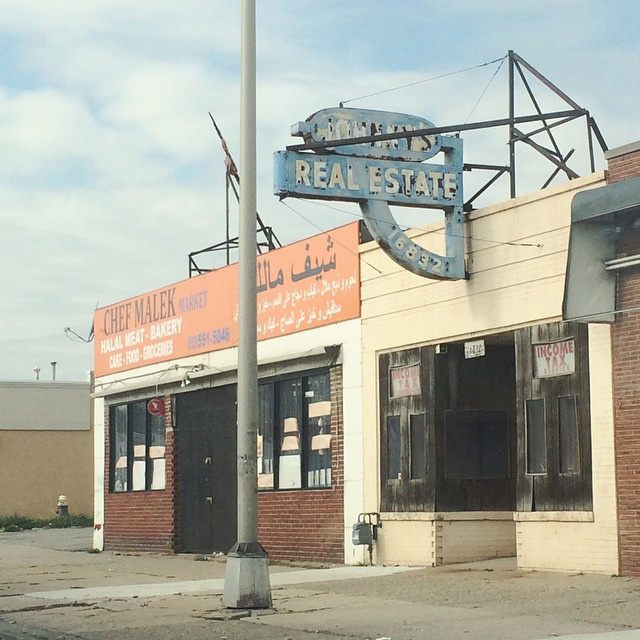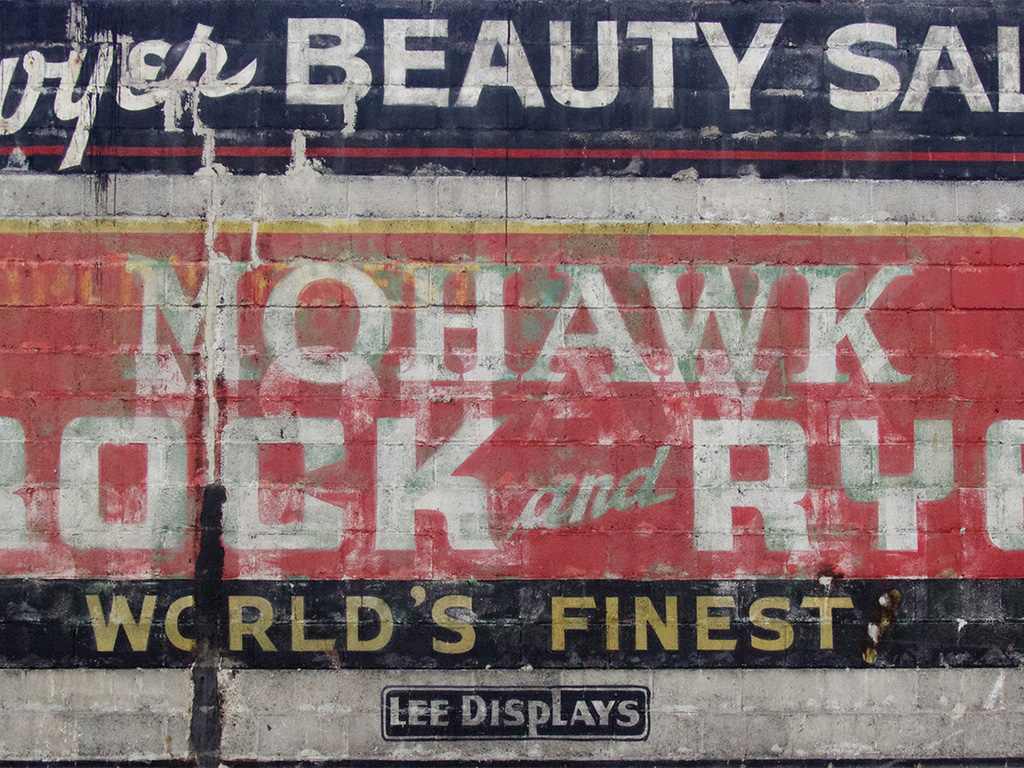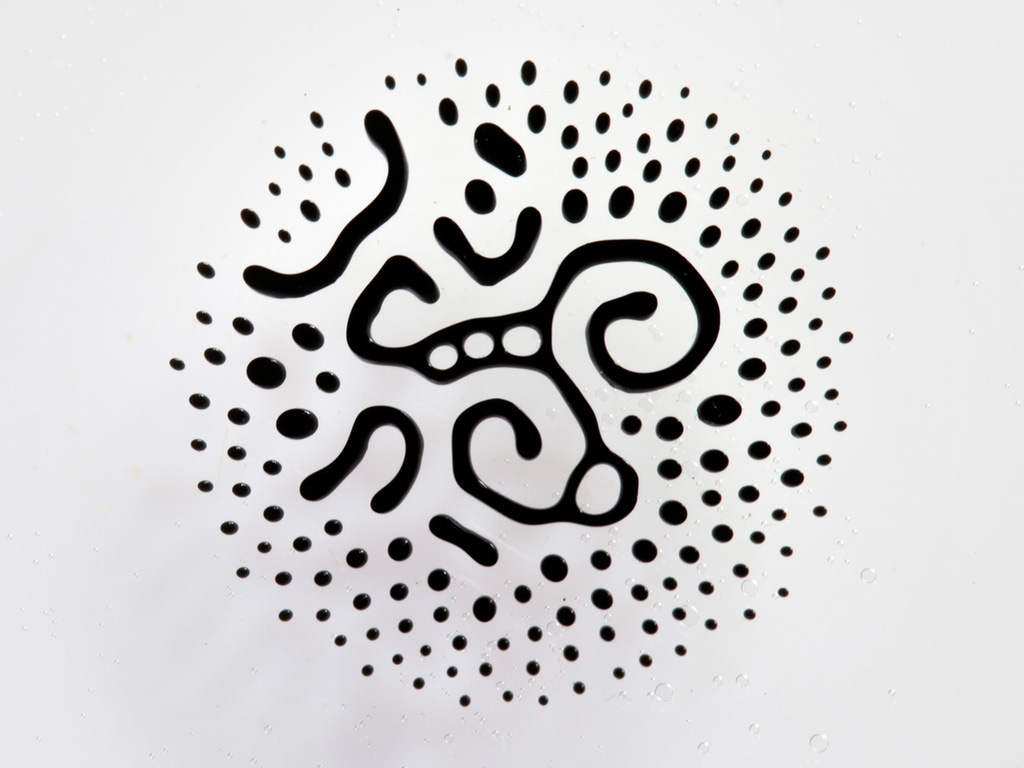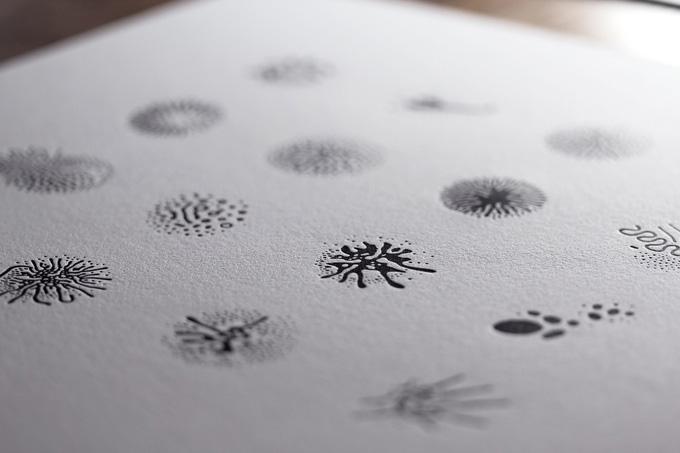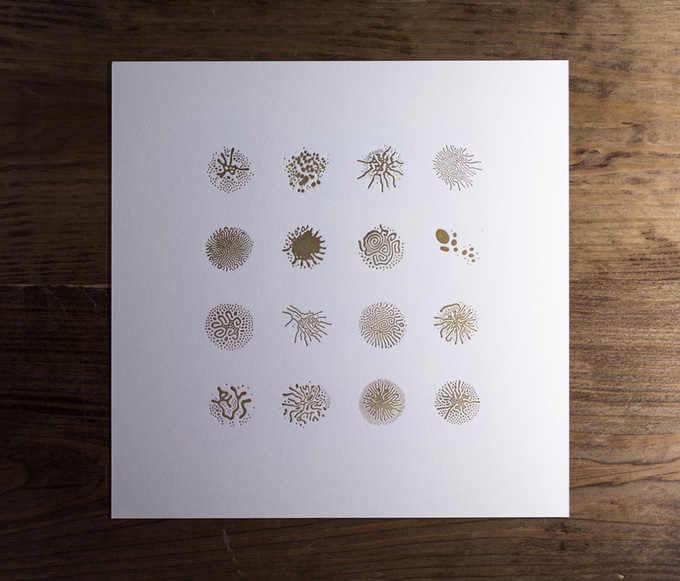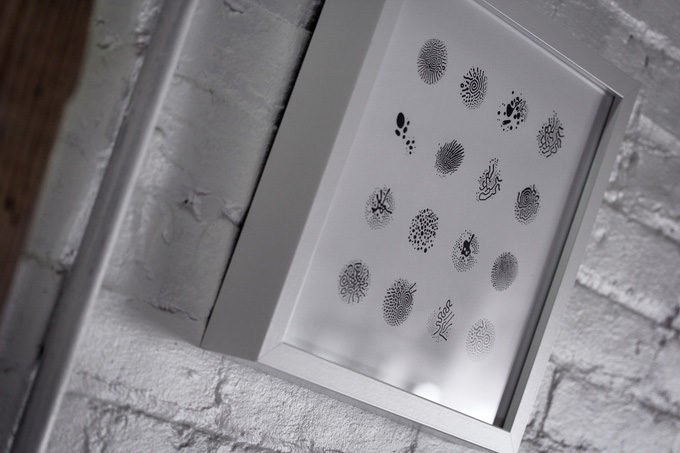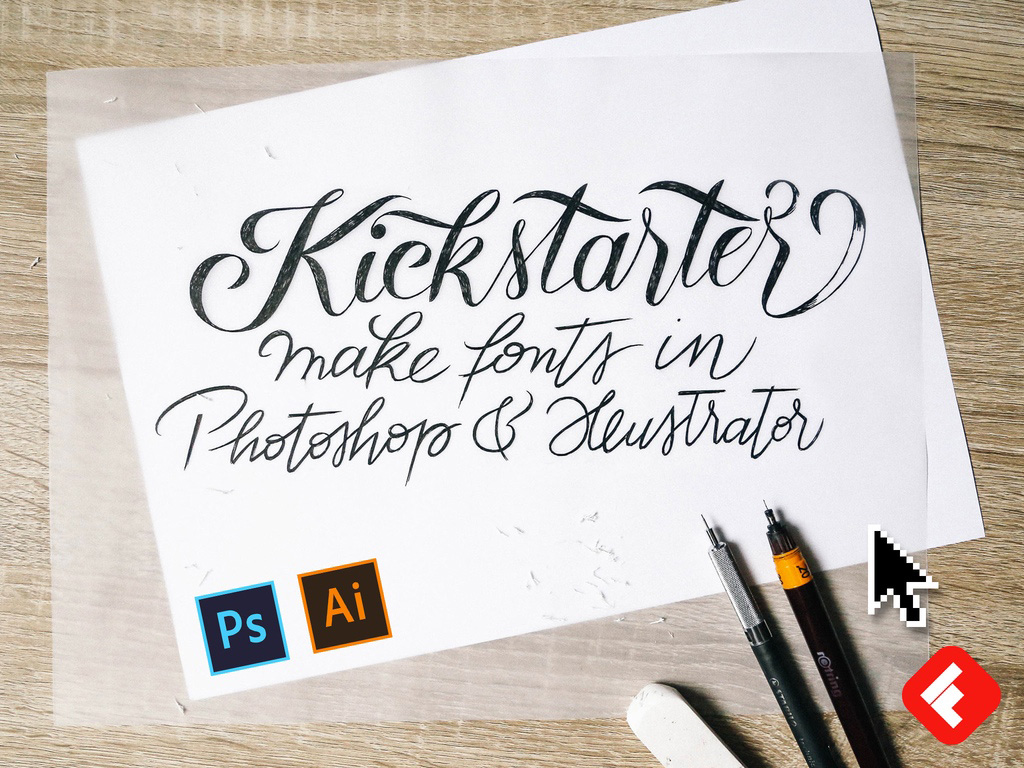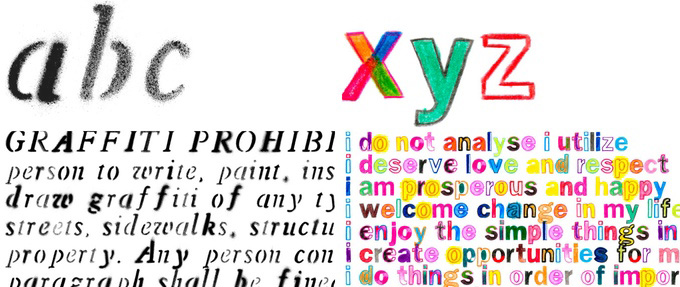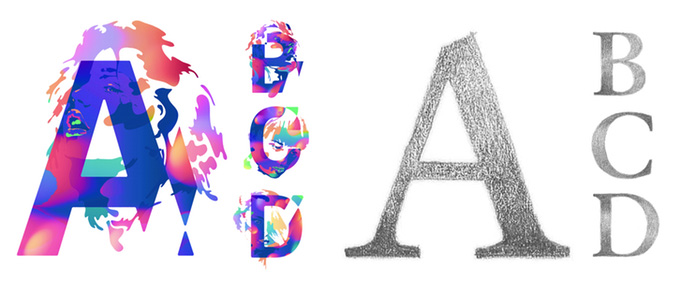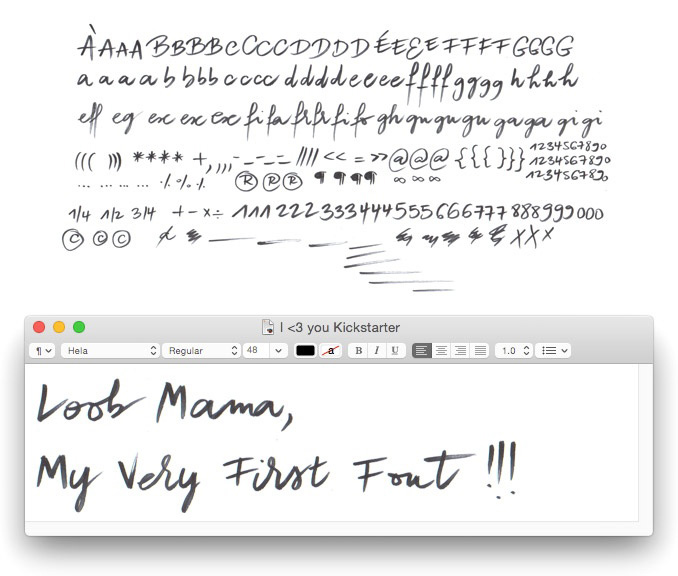
Three successfully funded typographic projects to notice
Kickstarter proves once again one of the most inspiring platforms for the creators of our times. Here we present you with three projects that caught our attention, three evidences that the road to perfection is paved with good intentions and even better supporters for your cause.
Fe₂O₃ Glyphs by Craig Ward & Linden Gledhill
“When is a typeface more than a typeface?” wondered the unorthodox and multi-award winning typographer Craig Ward who has once again collaborated with pioneering biochemist and experimental photographer Linden Gledhill for the creation of a generative, ornamental typeface and an accompanying series of original, one-of-a-kind, letterpress art prints in black and gold ferrofluid / ink mixes and a new white embossed version. In case you are wondering why, their answer is straight-forward. “Because science. And curiosity. Fe₂O₃ Glyphs (Fe₂O₃ being the main component of the kind of ferrofluid we used) aims to transcend the traditional role of a typeface - to provide a consistent and coherent platform for communication - and to completely invert it. The typically fastidious design of the glyphs is dictated by the printing medium itself and given over to an unrepeatable organic process. The ‘grid’ at its heart is replaced by conflicting magnetic field lines.”
Embossed ‘White on White’ version - where no ink is used for a very subtle effect
This is how it’s done. “To form the glyphs, a tiny amount of ferrofluid - a kind of magnetic ink, originally developed by NASA in the 1960’s - was placed between two glass plates and subjected to a combination of spinning vertical and horizontal magnetic fields. The result is an array of complex hieroglyphics and shapes - each one as unrepeatable as a snowflake - that simultaneously call to mind ancient indigenous markings or symbols from science fiction.”
This is a project that perfectly marries contemporary scientific process with a centuries old printing process and that is obviously one of the main reasons it is a success.
Unmounted 12 inch print depicting 16 glyphs
A single gold ferrofluid glyph
Meet the cast: 138 unique characters
Fontself by Franz Hoffman
“Fontself instantly turns your favorite creative software into font creation tools. Draw / sketch / paint / scan or photograph your alphabet. Select it. Done.” This is the task Hoffman accomplished and now everyone will easily turn our lettering into usable, colorful fonts, to sell or share them right within Photoshop & Illustrator.
Your iPhone’s camera as the hippest font creation tool around. Now please, #GoFontYourself
“You will be able to create fonts that display all the color range and visual richness of your designs: whether you’re using felt-tip pens to doodle your creative lettering, watercolor or ink to shade your titles, a pencil to sketch alphabets, or a stylus to draw perfect letters.
For Hoffman creativity should never be constrained by the tools we use. “Whether you love the precision of vector shapes, the contrast of black and white typography, or the organic richness of colorful handmade lettering, you should be able to create fonts with whichever tool suits you best to keep that creativity intact.”
WYSIWYG real-time font editing (slim font by Mathieu Julien)
So is this a font creation tool for everyone? Is typeface design redefined? Hoffman believes so all the way back to 2006. “It all started back then, in an attic. A graphic designer (Pierre Terrier), a coder (Marc Escher) and I (Franz Hoffman) came up with this crazy idea to redefine font creation processes and type technologies to turn the impossible possible: making font creation accessible to anyone and unlocking the potential of colorful, expressive typography. We called this project Fontself and made a printed manifesto, showcasing the innovations we had crafted to make colorful & handmade typography a reality, in a big A3 600dpi printed book. Since then, the project has had a fairly rocky journey” he adds of a dream that is kept alive. “Well, today, it’s 2015, and I am back in town with exciting new tools to share, and many more to come. Because, every single day, I remember what the old man used to say:
“Stay Hungry, Stay Foolish.”
One-click font creation process (calligraphy by Orietta Batzakis)
Gratiot & Riopelle Type Foundry by Jessica Krcmarik
“Gratiot and Riopelle is a locally-inspired and focused type foundry inspired by Detroit signage. As I archive found signage around the city, I’ll find similarities in the lettering styles and create fonts inspired by the look of individual neighborhoods, then provide them as pay-what-you-can downloads” says Krcmarik of her successfully funded project. She shares the same belief with all of the above. For her design should be accessible to everybody.
East Warren Ave & Barham
“Currently, there aren’t any pay-what-you-can fonts based on Detroit signage, but there are a lot of small businesses looking for affordable design, and even more areas that are losing their unique visual identity. As analog signs are removed, the neighborhood’s landscape becomes more uniform as the use of pre-fabricated signs is encouraged. By creating a usable font based on the signs in a particular area, and making it available to small businesses in that area, the visual culture lives on even if the sign it’s based on is painted over or destroyed.”
Her main challenge and risk is time. “Old signs and handpainted murals are being regularly painted over by the city in a (slightly misguided) effort to reduce blight -- so, if I can’t get to these quickly enough, they’ll be painted over, sometimes even if the sign is on an open business who paid for the work.”
This is a project of paying it forward. “I’ve been a freelance designer for several years, thanks in part to a supportive local design community. I’m confident I’ll continue to get feedback on the fonts in this project from other designers in my shared studio and around the city to keep everything faithful to the source material.”